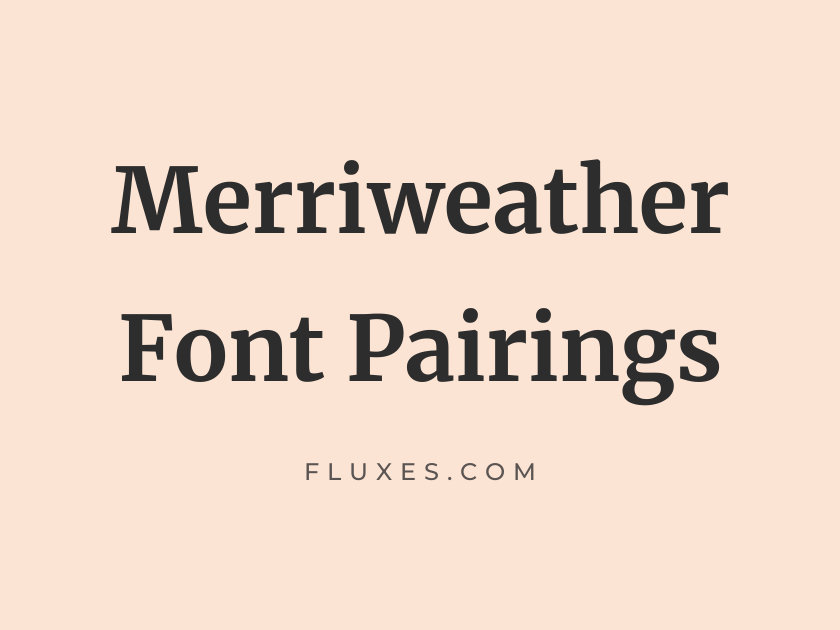
10 Best Font Pairings for Merriweather
Merriweather was drawn for screens first, with sturdy serifs, a generous x-height, and slightly condensed letterforms that hold up at small sizes. That makes it flexible: it reads comfortably as long-form body text, but its weight and personality also let it carry headlines. The pairings below lean on that flexibility, matching Merriweather with sans-serifs that either sharpen its warmth or let it stay in the background as a readable text face.
Merriweather + Karla
Karla's grotesque simplicity keeps the page calm while Merriweather does the emotional heavy lifting up top.
Karla is a low-key grotesque with slightly quirky curves of its own, so it never fights with Merriweather’s character in headlines. The contrast between a warm slab-inspired serif and a crisp neutral sans is a classic editorial move that suits blogs and personal essays.
Montserrat + Merriweather
Montserrat's geometric confidence up top gives way to Merriweather's comfortable reading rhythm in the paragraphs below.
Montserrat’s even strokes and geometric proportions make it a strong architectural headline face, while Merriweather’s higher contrast and traditional serif shapes settle nicely into long paragraphs. This is a dependable Google Fonts pairing for portfolio sites and case studies where headlines need punch but body copy needs stamina.
Merriweather + Noto Sans
Noto Sans was built for interfaces, so it stays legible and unobtrusive at small sizes under a heavier serif headline.
Noto Sans was engineered for clarity in UI contexts, which means it never competes for attention when Merriweather is set large above it. The pairing suits documentation, newsletters, and any project where the body text needs to disappear into pure readability.
Oswald + Merriweather
Oswald's tall condensed letters create a strong visual anchor, and Merriweather relaxes the eye once the reading begins.
Oswald’s condensed, all-caps-friendly proportions create a poster-like headline that contrasts sharply with Merriweather’s rounder, more relaxed body forms. The size and width contrast between the two is what makes this combination work, and it fits magazine-style layouts or news sites well.
Merriweather + Lato
Lato's humanist warmth complements Merriweather without echoing its serif details, keeping the hierarchy clean.
Lato has just enough warmth in its curves to feel compatible with Merriweather’s personality, yet its sans-serif structure keeps the visual hierarchy obvious. This is one of the more versatile Merriweather font combinations, equally at home on a business site or a recipe blog.
Raleway + Merriweather
Raleway's elegant, thin-waisted letterforms set a sophisticated tone that Merriweather's readable body text can support all day.
Raleway’s narrow apertures and delicate weight give headlines a fashion-forward feel, and Merriweather balances that lightness with a body face that has real reading substance. Reserve this pairing for lifestyle brands or editorial sites that want a touch of elegance without losing legibility.
Merriweather + Work Sans
Work Sans keeps a neutral, screen-optimized rhythm that lets Merriweather's headline carry the emotional tone.
Work Sans shares Merriweather’s screen-first design philosophy, so the two fonts share compatible spacing and rendering habits even though one is serif and one is sans. It is a practical choice for SaaS marketing pages and product blogs that need both warmth and efficiency.
Poppins + Merriweather
Poppins brings a rounded, geometric energy to headlines, while Merriweather grounds the page with traditional serif texture.
Poppins is geometric and slightly playful, which creates useful friction against Merriweather’s more formal, bookish body text. The mix works well for startups and creative studios that want an approachable headline without sacrificing a serious reading experience underneath.
Merriweather + Nunito Sans
Nunito Sans is soft and rounded, offsetting Merriweather's more traditional serif texture with a gentler, modern feel.
Nunito Sans has rounded terminals and open counters that soften the overall page, which helps when Merriweather’s headline weight might otherwise feel heavy. This pairing suits wellness brands, community platforms, or any voice that wants warmth without losing structure.
Archivo + Merriweather
Archivo's grotesque sturdiness up top hands off cleanly to Merriweather's comfortable, well-tested paragraph rhythm.
Archivo is a no-nonsense grotesque with a slightly industrial feel, and that neutrality makes it a good foil for Merriweather’s more decorative serif details. Use this combination where a headline needs to feel confident and current while the body text still needs to invite long reading sessions.
Tips for pairing with Merriweather
Keep Merriweather’s body size a touch smaller than you might with a lighter serif; its sturdy strokes read clearly even at 16 to 18 pixels.
When Merriweather is the headline font, choose a sans body with a neutral or humanist feel rather than anything too geometric or narrow, so the transition feels intentional.
Limit weight variation to two or three steps per pairing; Merriweather’s own bold and black weights are already strong enough for most hierarchy needs.